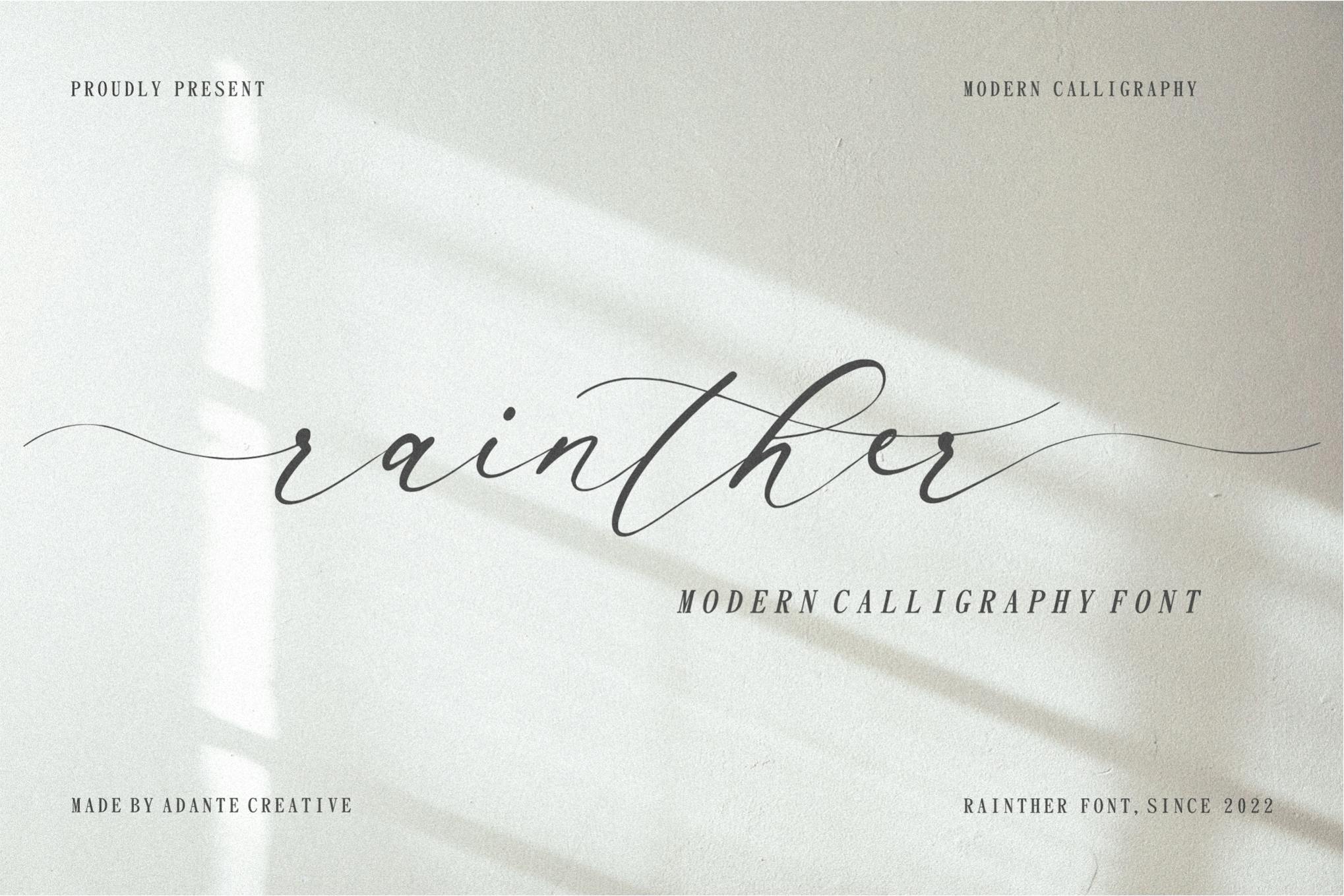
AC - Rainther Font
Rainther is a Modern Calligraphy font, Whether it's for a wedding, party, or corporate event, modern calligraphy fonts can be used on signage such as welcome signs, seating charts, and menu boards to create a memorable and elegant atmosphere. This font includes OTF, TTF & Woff Software that you can use to use this font: Adobe Illustrator, Adobe Photoshop, Microsoft Word, Corel Draw, And Inkscape, etc.